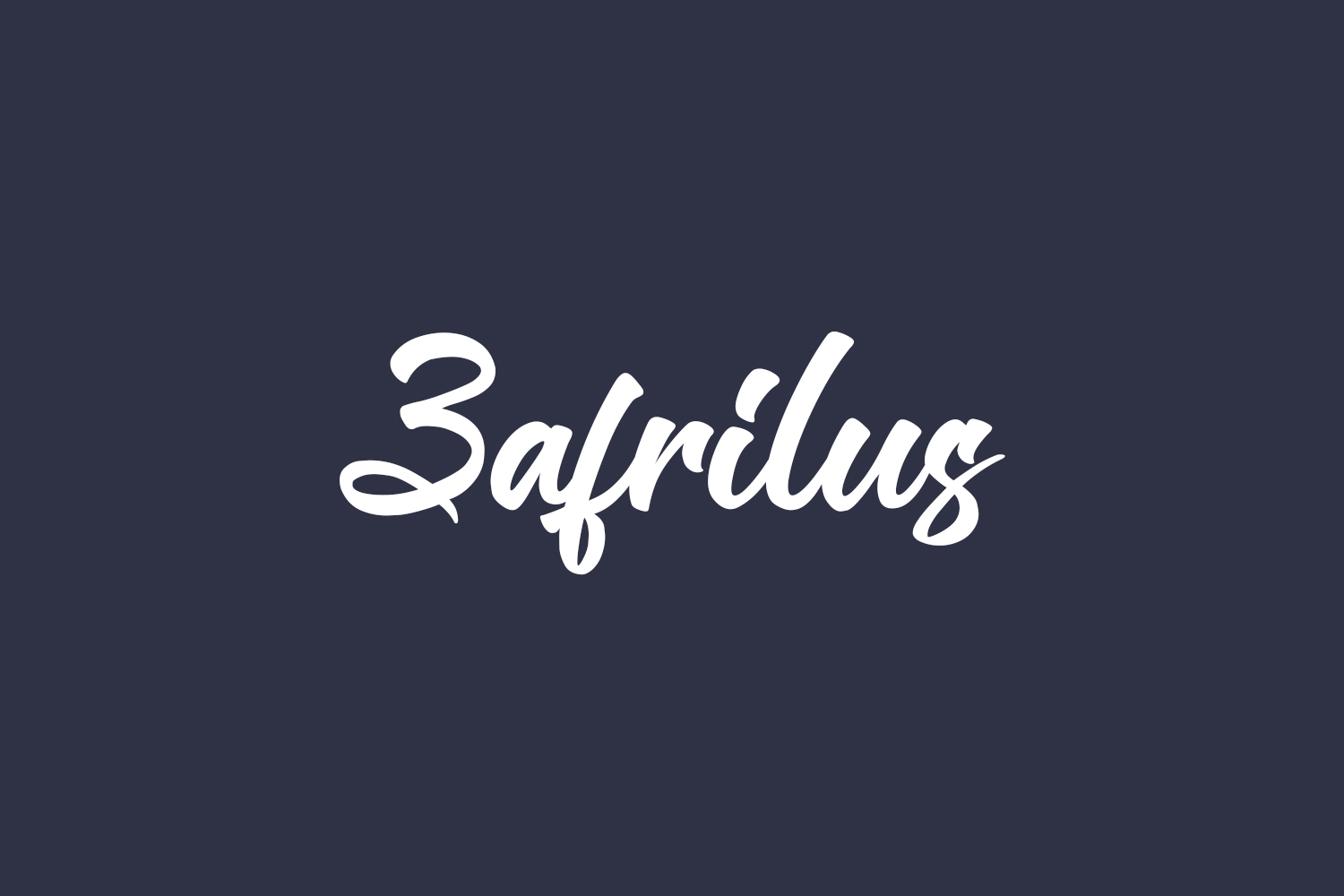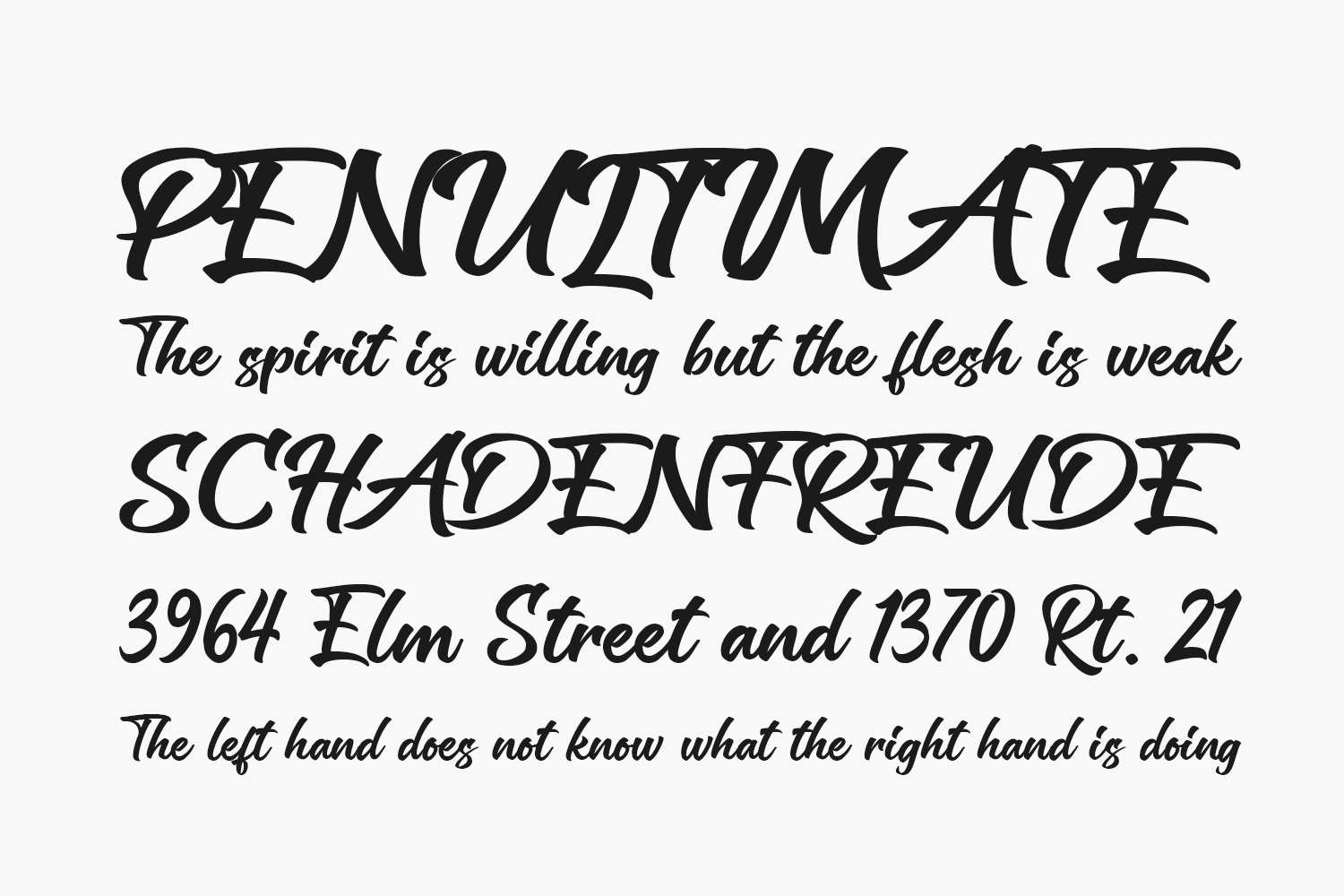
Zafrilus Free Font is an adorable quirky handwritten font. It will add an incredibly joyful touch to your designs. Fall in love with its playful style and use it to create beautiful stationery art, eye-catching social media posts, and much more. Zafrilus Free Font was designed by Hanzel Space and is free for personal use only. Please purchase the full version for commercial use.